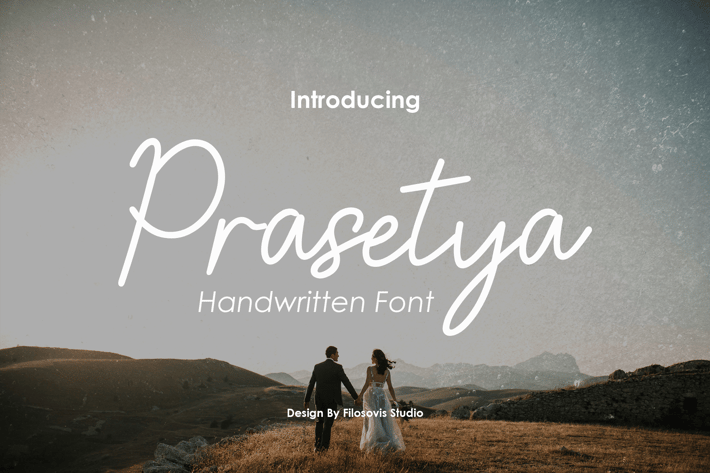
Prasetya | Handwritten Font
Description
For your creative project, use the Prasetya-themed handwritten font. Handwritten font script is appropriate for every kind of design you produce, including greeting cards, posters, logos, and branding.